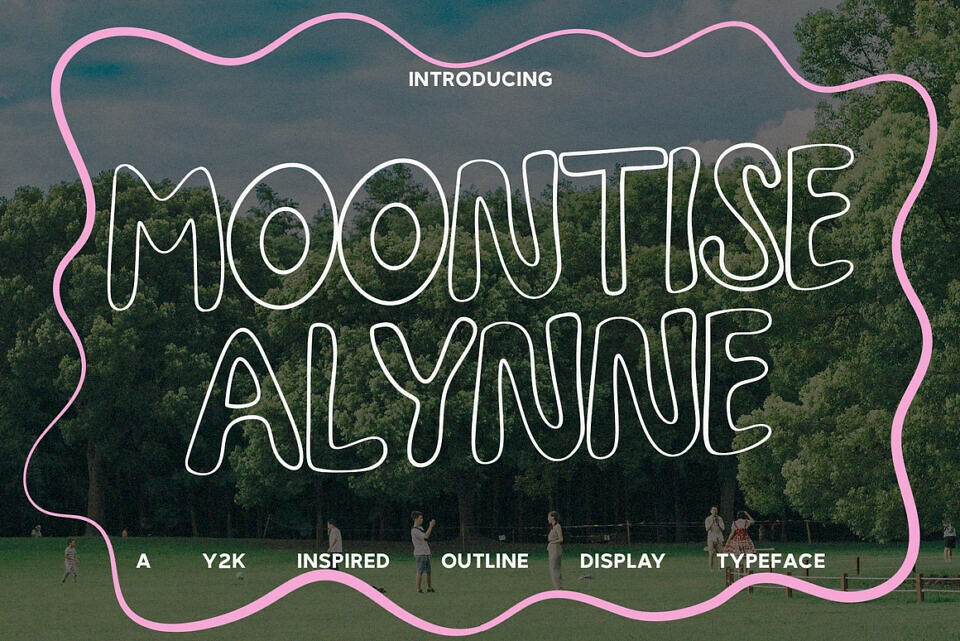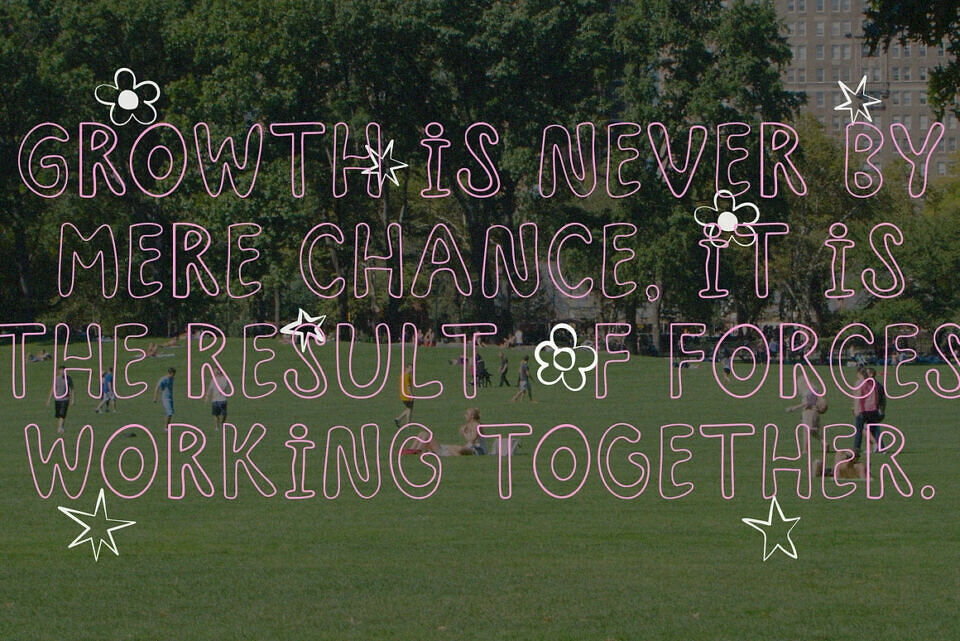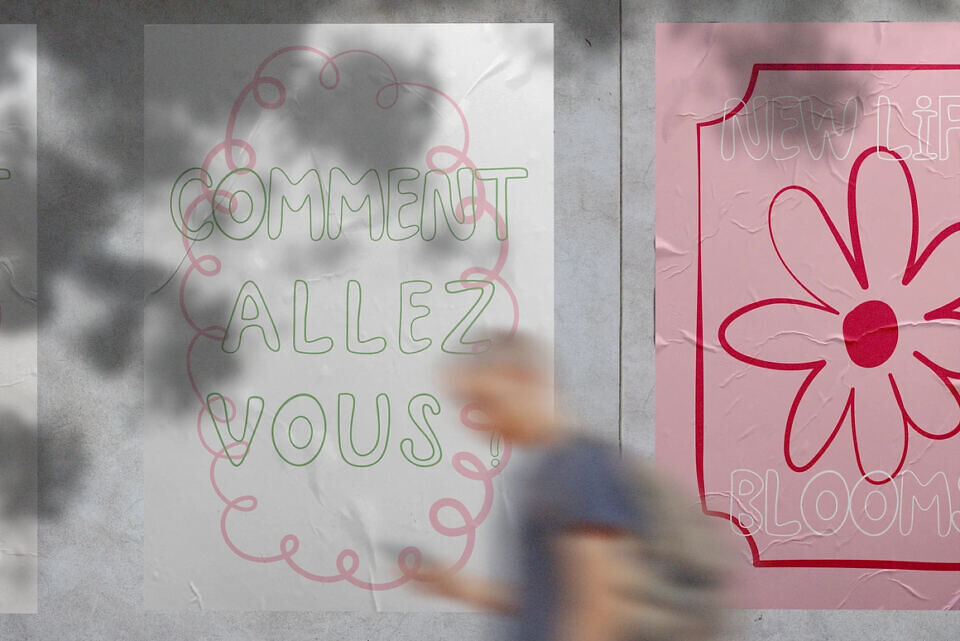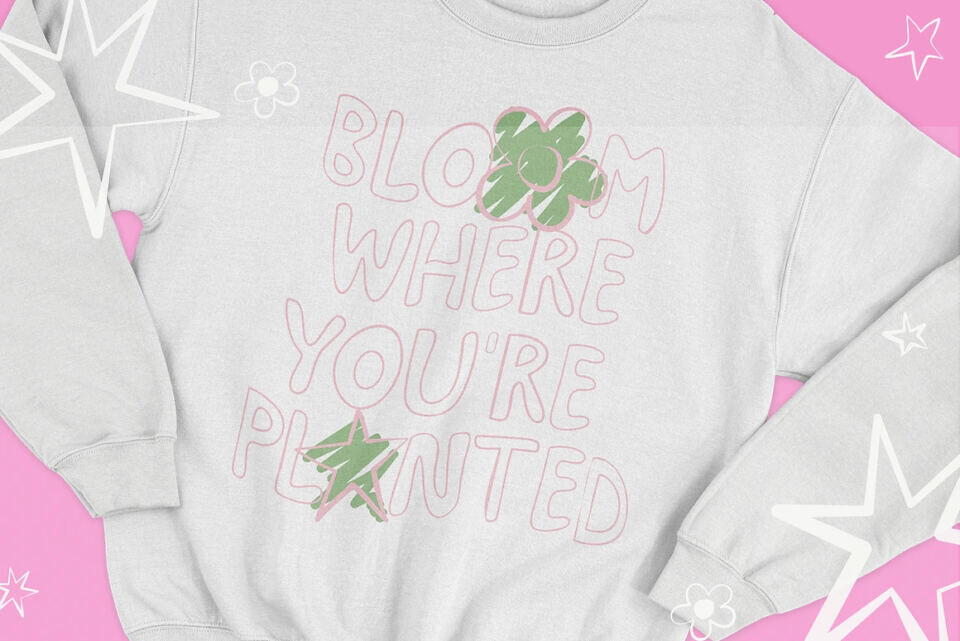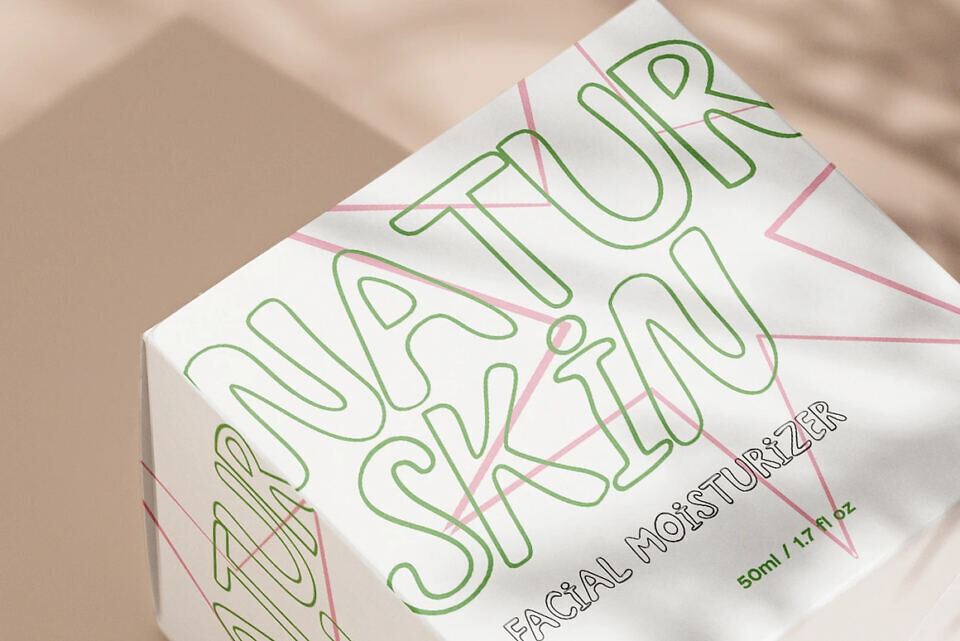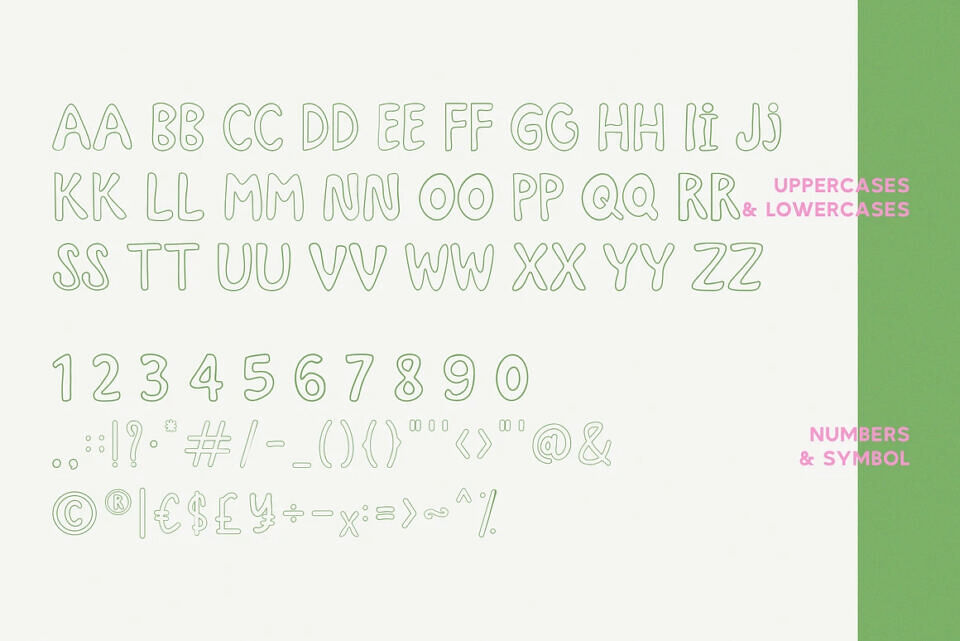
Moontise Alynne is a playful and nostalgic outline display font that captures the essence of the early 2000s (Y2K) aesthetic with a modern twist. With its soft, bubbly curves and distinctive outline style, this typeface radiates retro-futurism while keeping things light and fun.
Perfect for standout headlines, event posters, album artwork, youth fashion branding, and experimental visuals, Moontise Alynne is a throwback to bold creativity. The font’s hand-drawn, fluid forms make it perfect for designers seeking a unique visual voice that feels both vintage and contemporary.
Whether you’re designing for a music project, digital zine, or fashion campaign, Moontise Alynne adds an instant sense of character and cool.